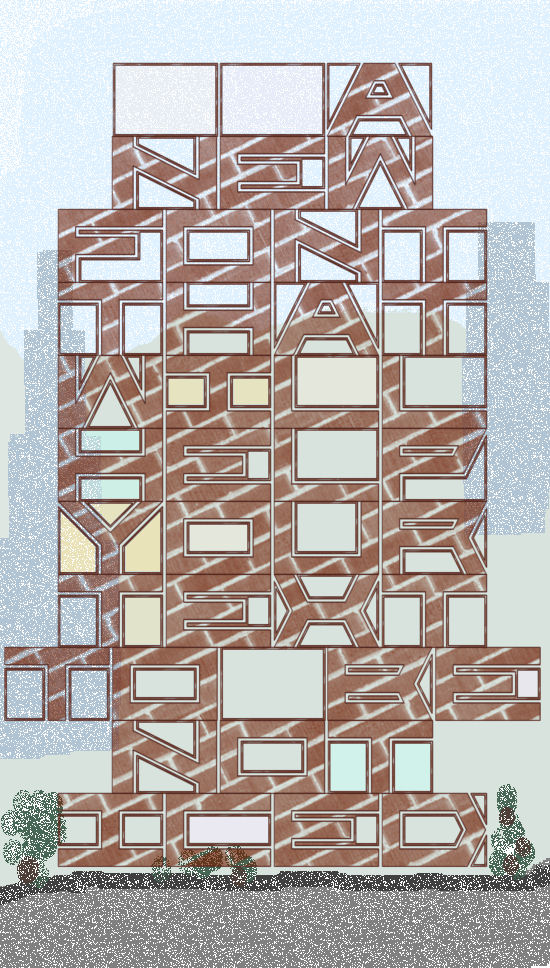
bb Forty-Eight
Basic Latin (without lowercase and asterisk)
This will be impressive. I'll think about the best adjectives when all the glyphs are done, it's interesting and educational to see the framework and thought you use to make them :)
Potentially awesome.
Don't rush. Awesomeness comes gradually. Keep exploring its potential till you sure :)
Work is over!
I decided not to add the lowercase letters and an asterisk, because it was difficult to create.
This font is perfect for display text, logos,poster titles,shop names. It needs no lower case. A successful graphic design look, bold letters susended in their 'frames'.  A new idea, it deserves 11/10 :)
I wanted to write "suspended" ...
@Aeolien Thank you! Cute brick house of a my font. :-)
Beautiful font and absolutely incredible sample!
Well, it's earned a year and more. :)